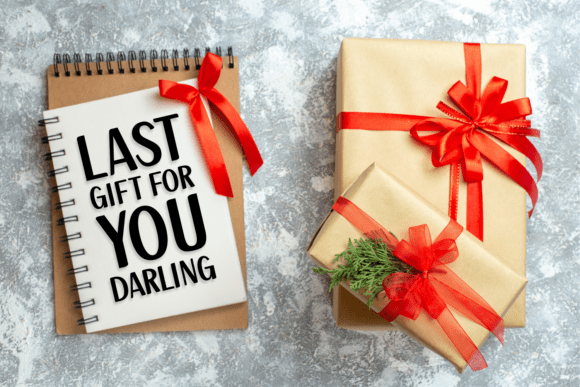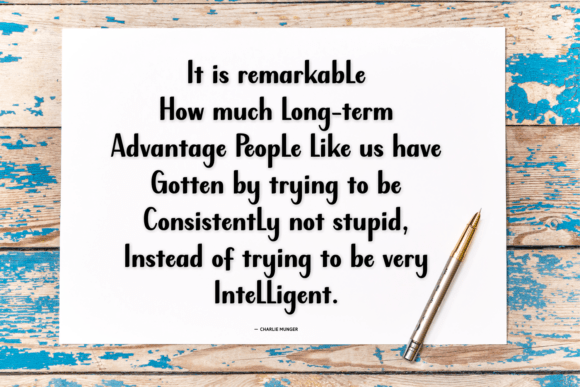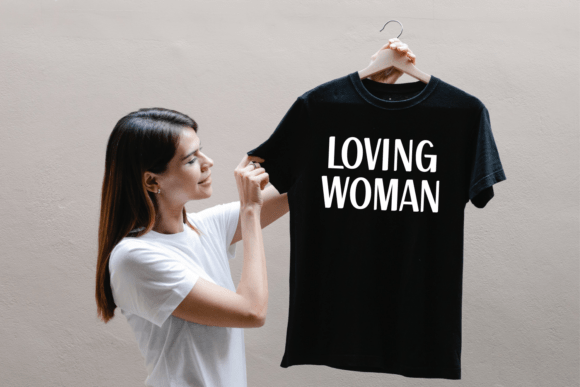
Introduction to Magical Creation Font
Remember the rush of excitement you feel when a creative project starts to take shape? The spark of inspiration that ignites a new idea, and the joy of watching your design come to life? For designers, this feeling is a precious gem that we cherish and strive to recreate with every new project. And that’s exactly what the Magical Creation Font is all about – capturing the essence of creativity and infusing it into your designs.
Whether you’re a seasoned designer or just starting out, the Magical Creation Font is a valuable addition to your toolkit. Its unique charm and warmth make it the perfect design resource for a wide range of creative projects, from sublimation t-shirts and lovely card designs to wall art and blog content. And the best part? It’s now available for free download, complete with a transparent background for seamless integration into your designs.
Key Features of Magical Creation Font
- Unique Magical Creation Font design, perfect for creative projects and artistic expressions.
- Perfect for designers, artists, and creatives looking for a unique and versatile design resource for their next project.
Honest Review: Magical Creation Font
I recently had the chance to play around with the Magical Creation Font, and I’m excited to share my thoughts with you. As a designer, I’m always on the lookout for high-quality design resources that can help bring my creative projects to life.
- The Magical Creation Font has a unique, whimsical feel that’s perfect for adding a touch of magic to your designs.
- The font is highly customizable, with a range of weights and styles to choose from.
- The Magical Creation Font may not be suitable for corporate or professional designs, as it has a more playful feel.
Overall, I’m impressed with the Magical Creation Font. It’s a great addition to any designer’s toolkit, and its free download option makes it a must-have for any creative project. While it may have some limitations, the font’s unique feel and high quality make it a valuable resource for designers looking to add a touch of magic to their work.
The Magical Creation Font is a versatile design resource that can be used in a variety of creative projects, including:
- Blog posts and articles
- Presentations and slides
- Print materials and flyers